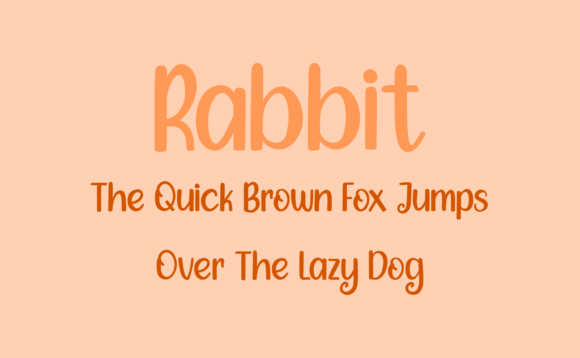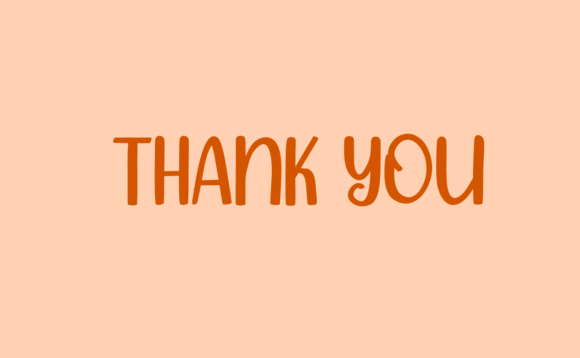
Easter Sublimation Font
Bring a lively and playful touch to your creative projects with the Easter Sublimation font. This fun and casual handwritten script is designed to be incredibly versatile. Whether you are working on crafts, digital designs, presentations, or any other creative ideas, Easter Sublimation fits perfectly.
The Easter Sublimation font features natural and flowing strokes that add a warm, friendly vibe to your designs. Its casual style makes it suitable for a wide range of projects. This font helps your work feel approachable and dynamic.
You can use the Easter Sublimation font for crafting, digital artwork, presentations, sublimation printing, and much more. Its relaxed yet neat look is ideal for projects that want to connect with audiences through a handwritten style. This font is perfect for anyone seeking a fun and casual script.
Despite its casual design, the Easter Sublimation font offers excellent readability at various sizes. Whether used for bold headlines or smaller text elements, it guarantees clarity and style.
Using the Easter Sublimationfont will add an inviting and joyful character to your projects. If you want a handwritten font that’s versatile and easy to use, this font is a great addition to your collection.
In summary, the Easter Sublimationfont is a fun, casual, and versatile handwritten script. Perfect for crafts, digital designs, presentations, and sublimation projects, it brings energy and personality to every creation. Download it today and make your designs more lively with Easter Sublimation.